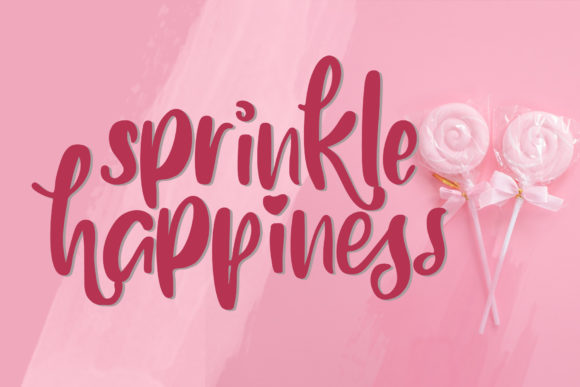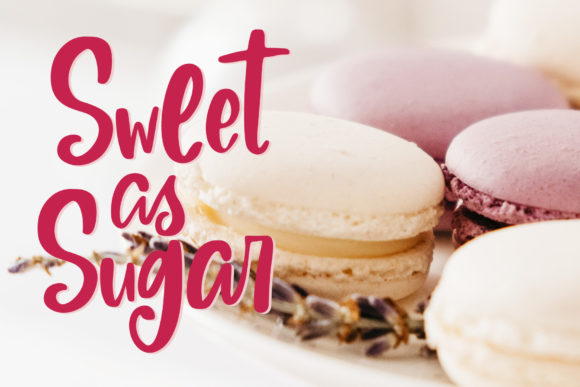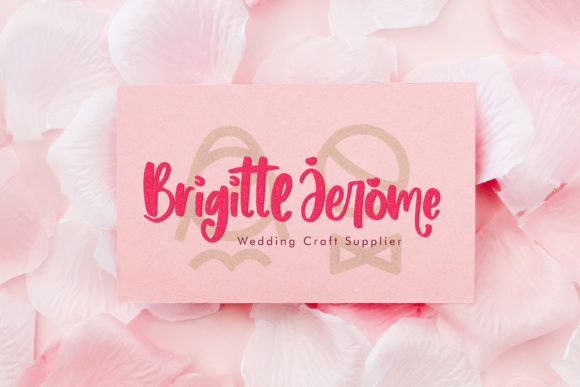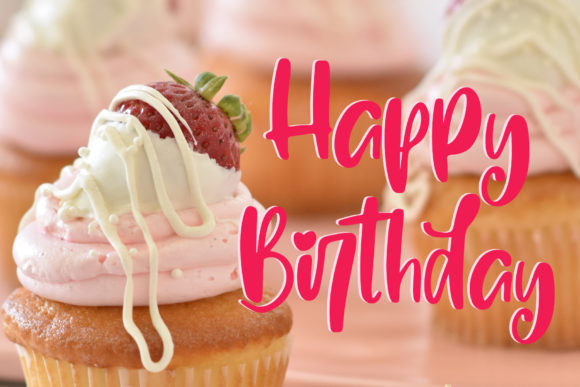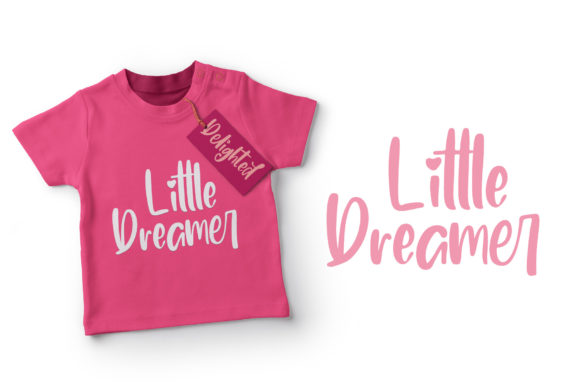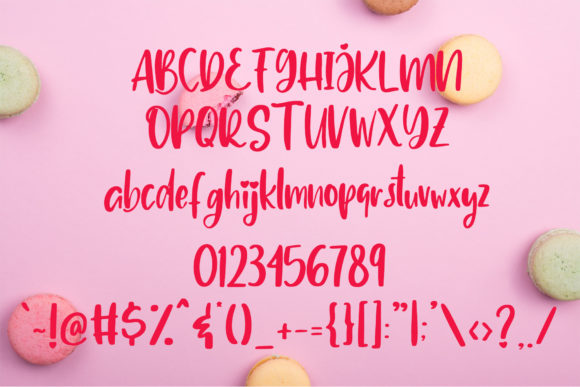
Introducing Delighted Font: The Charming Brush Script for Creative Projects
Are you tired of using the same old fonts for your creative projects? Look no further! Delighted Font is here to add a touch of whimsy and charm to your designs. This delightful brush script font is perfect for crafters, designers, and anyone looking to add a personal touch to their work.
What is Delighted Font?
Delighted is a charming brush script font with a quirky and cute style. Its unique and playful design makes it perfect for a wide variety of creative projects, from handmade crafts to digital designs. Whether you’re creating invitations, greeting cards, or social media graphics, Delighted Font is sure to bring a smile to your audience’s faces.
Features of Delighted Font
So, what makes Delighted Font so special? Here are just a few of its standout features:
- Quirky and Cute Style: Delighted Font has a playful, hand-brushed feel that’s perfect for adding a touch of personality to your designs.
- Highly Versatile: This font is suitable for a wide range of creative projects, from paper crafts to digital designs.
- Easy to Read: Despite its playful style, Delighted Font is highly legible, making it perfect for use in body text or headings.
Uses for Delighted Font
So, what can you use Delighted Font for? The possibilities are endless! Here are a few ideas to get you started:
- Handmade Crafts: Use Delighted Font to add a personal touch to your handmade crafts, such as scrapbook pages, cards, and gift tags.
- Digital Designs: Add a playful touch to your digital designs, such as social media graphics, blog headers, and email newsletters.
- Stationery: Use Delighted Font to create custom stationery, such as letterheads, journals, and planners.
- Signs and Displays: Add a whimsical touch to your signs and displays, such as store signs, event banners, and trade show displays.
Tips for Using Delighted Font
Here are a few tips for getting the most out of Delighted Font:
- Experiment with Colors: Delighted Font looks great in a variety of colors, so don’t be afraid to experiment and find the perfect hue for your project.
- Mix and Match: Combine Delighted Font with other fonts to create a unique and eye-catching design.
- Use it Sparingly: While Delighted Font is perfect for adding a touch of whimsy to your designs, it’s best used sparingly to avoid overwhelming the viewer.
In conclusion, Delighted Font is a charming brush script font that’s perfect for adding a touch of personality to your creative projects. Its quirky and cute style makes it highly versatile and suitable for a wide range of applications. Whether you’re a designer, crafter, or simply someone looking to add a personal touch to your work, Delighted Font is sure to delight.